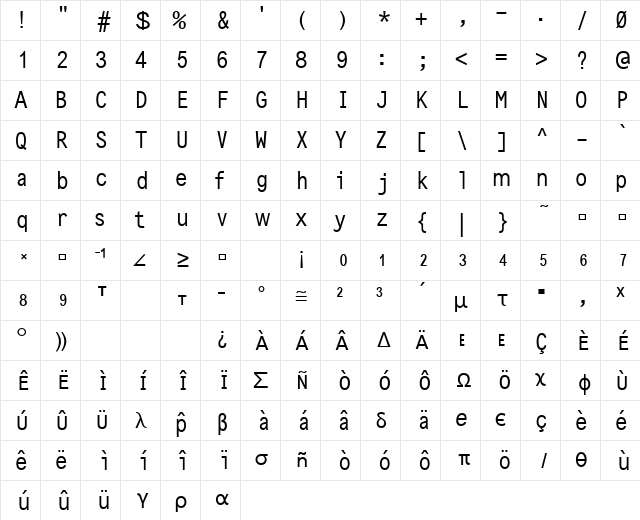
TI-83p Mini Sans Normal
Design Context for TI-83p Mini Sans Typeface
TI-83p Mini Sans is a composed and adaptable typeface that performs quietly and consistently across a wide range of design contexts.